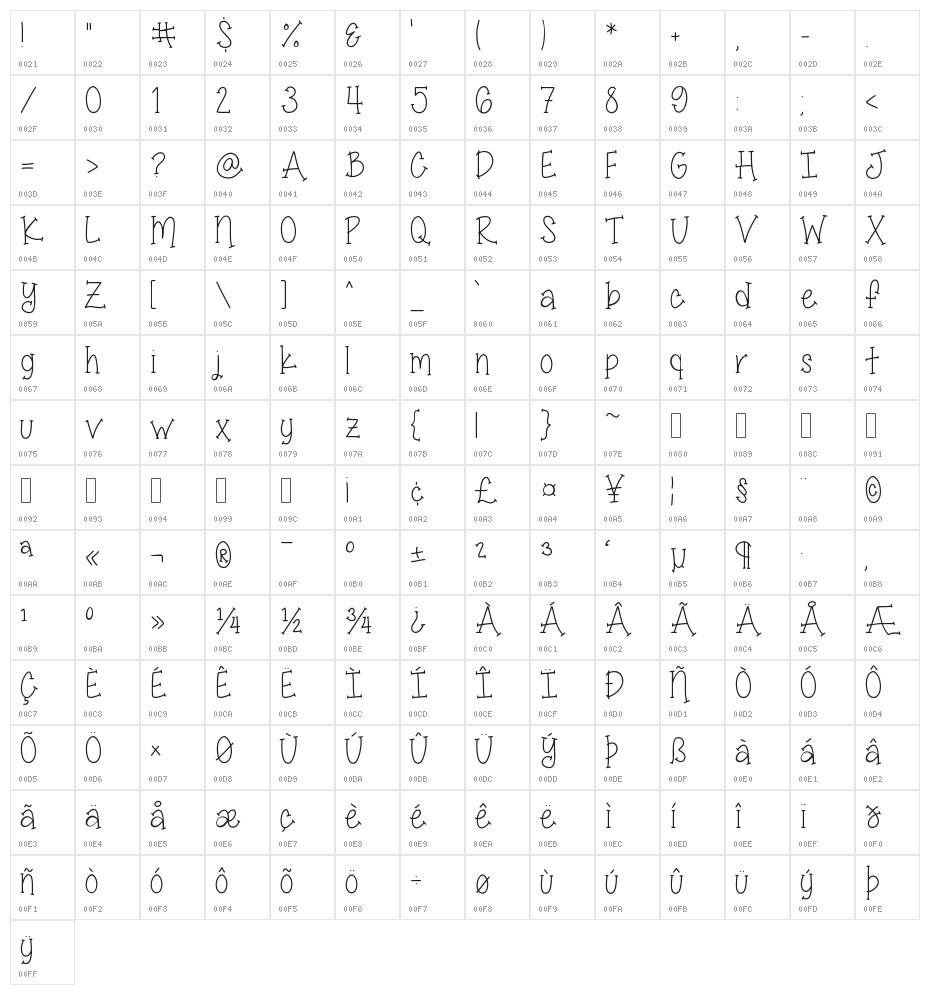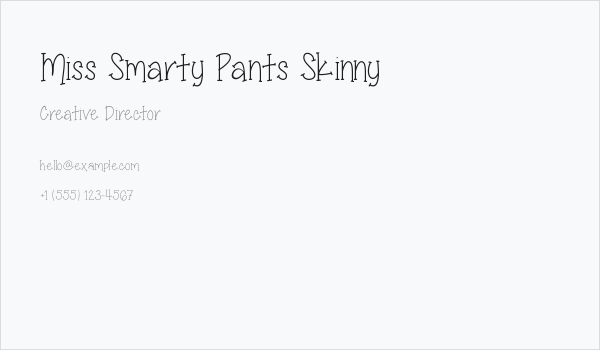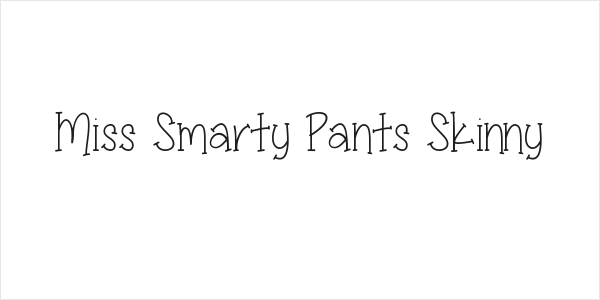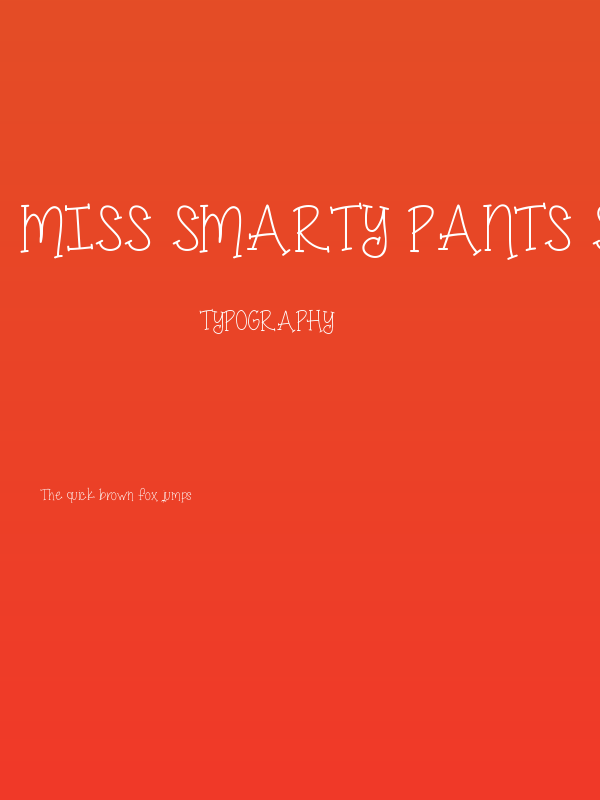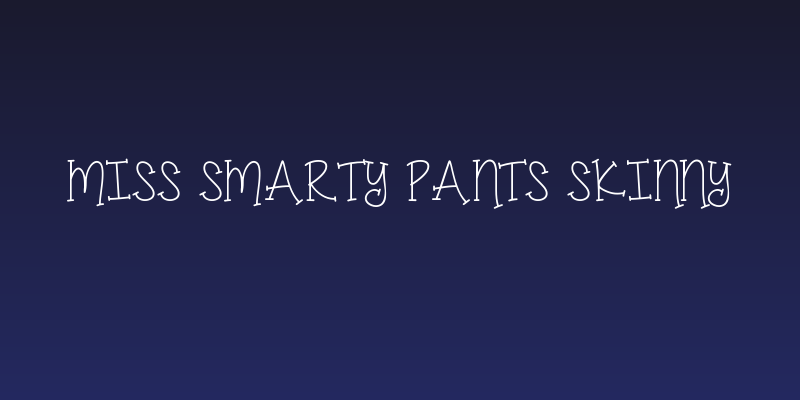
Miss Smarty Pants Skinny Font
Miss Smarty Pants Skinny Description
This playful and whimsical font features a handwritten style with a quirky, casual appearance. The letters are slightly tilted, adding a sense of movement and fun. The strokes are consistent in width, giving it a uniform look, while the irregularities in the letterforms add a personal touch. The uppercase and lowercase letters maintain a cohesive style, with rounded edges and a slight bounce in the baseline. The numerals and special characters complement the alphabet with the same playful aesthetic, making it suitable for creative and informal projects.
| Overall Style | Playful |
| Use Case | Headlines, Logos, Informal Text |
| Proposed Projects | Ideal for children's books, greeting cards, playful branding, and social media graphics. |